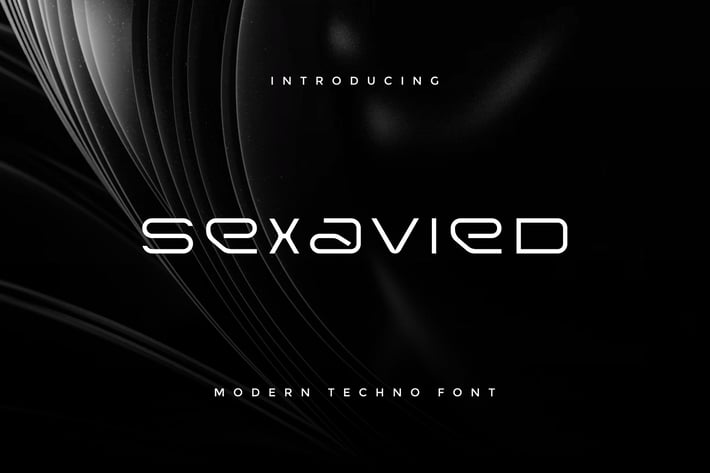
Sexavied - Modern Futurustic Font
Introducing our new product Sexavied - Modern Font
Sexavied is a bold, modern display font with playful flair, ideal for attention-grabbing headlines, logos, and diverse design projects. Versatile and readable in both digital and print, Sexavied adds a dynamic touch to your message.